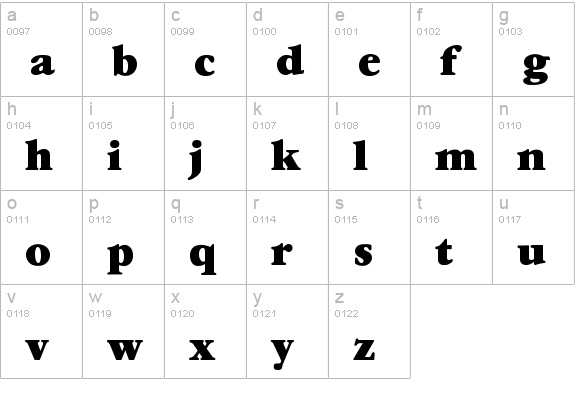
Garamond* Ultra Font Details
Garamond* Ultra is an extreme-weight, display variant in the Garamond* typeface family \xE2\x80\x94 well suited to extreme display use where maximum visual weight is required.
Garamond Ultra font is a timeless and elegant typeface that exudes sophistication and class. With its beautifully crafted serifs and graceful curves, this font is perfect for adding a touch of refinement to any design project. The Garamond Ultra font is versatile and can be used for a wide range of applications, from branding and advertising to editorial design and invitations. What sets Garamond Ultra font apart is not only its exquisite design but also the fact that it is available for free download at FontsMarket.com. This means that you can easily access this high-quality font without any cost, making it a valuable addition to your font library. Whether you are a professional designer or a hobbyist, Garamond Ultra font offers a premium look and feel without the premium price tag. So why wait? Download Garamond Ultra font today and elevate your designs with this stunning typeface.